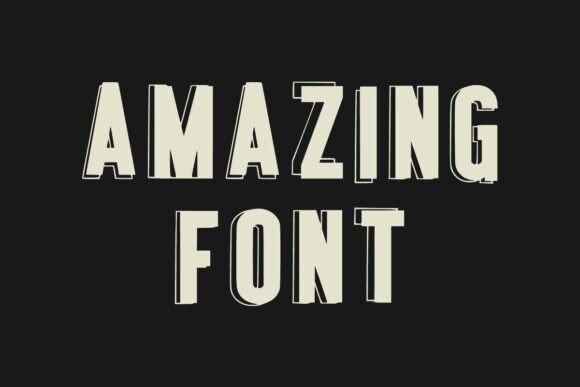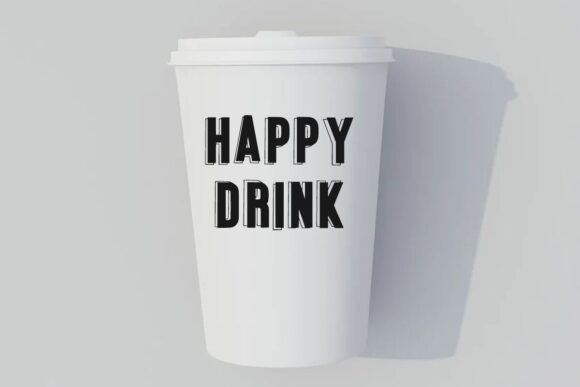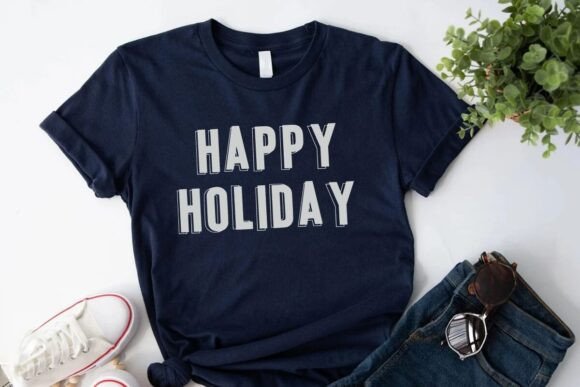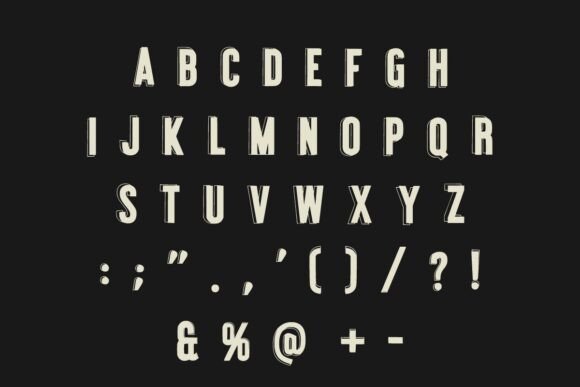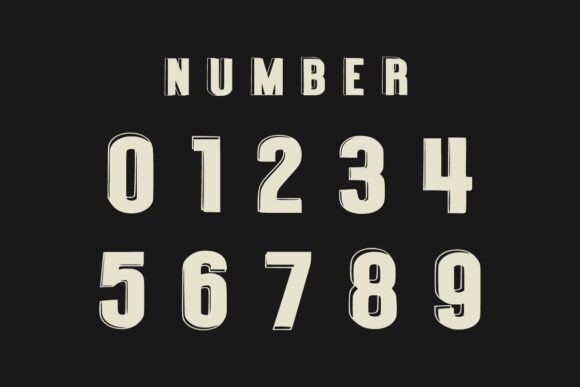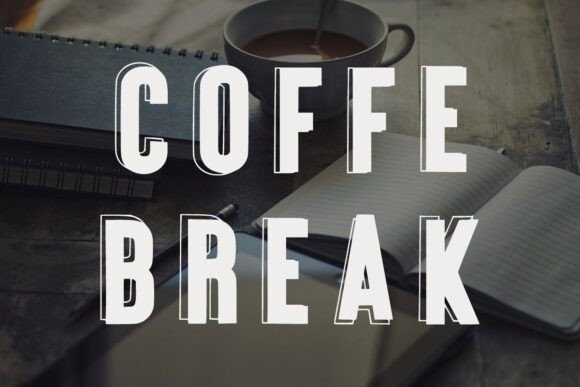
The Funky Retro Font: A Bold and Playful Addition to Your Design Arsenal
I’ll never forget the time I was working on a project for a client who wanted a bold, eye-catching font to capture the essence of a retro-themed poster. I scoured the internet, tried countless fonts, but nothing seemed quite right. That was until I stumbled upon the Funky Retro font. Its unique charm and dynamic effect immediately caught my attention, and I knew I had found the perfect fit. In this article, I’ll share my experience with Funky Retro, its features, and how to make the most of it in your designs.
- ✨ Dynamic effect: Funky Retro has a bold, double-line effect that adds a fun and playful touch to any design.
- ✅ Perfect for headlines: This font is designed to make a statement, making it ideal for attention-grabbing headlines.
- 🎉 Versatile: From sporting events to automotive posters, school posters, and more, Funky Retro can be used in a wide range of applications.
- 💻 Easy to use: With its simple, intuitive design, you can easily incorporate Funky Retro into your projects.
While Funky Retro is an excellent font, there are a few things to keep in mind:
- 🤔 Legibility at small sizes: Due to its bold, double-line design, Funky Retro may not be the best choice for small font sizes or body text.
- ⚠️ Limited use in formal designs: The playful, retro vibe of Funky Retro may not be suitable for formal or professional designs.
Funky Retro was designed with one goal in mind: to create a bold, eye-catching font that’s perfect for headlines and attention-grabbing designs. The designer, inspired by the retro aesthetic of the 70s and 80s, set out to create a font that’s both fun and functional. With its unique charm and dynamic effect, Funky Retro is sure to become a favorite among designers and crafters.
A: Funky Retro is a retro font and double line bold-looking display font, perfect for headlines, sporting events, automotive posters, school posters, text effects, templates, logos, or monogrammed designs.